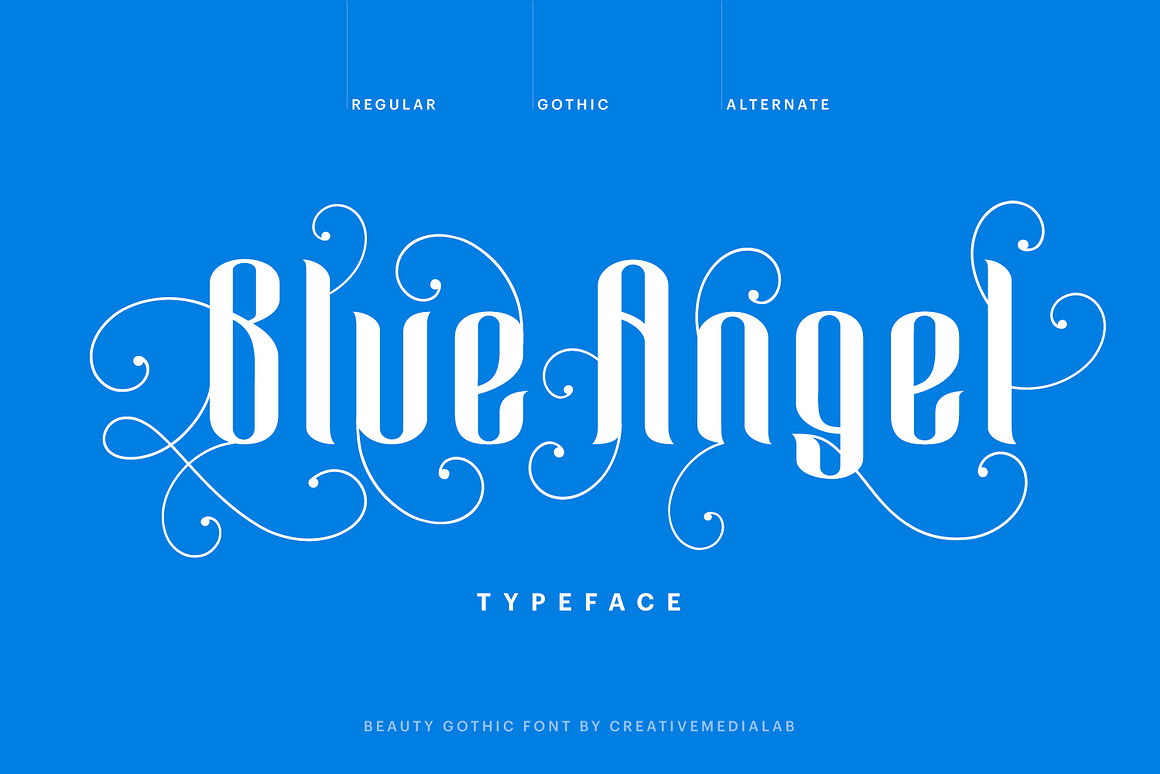
Blue Angel Font
Blue Angel Font is perfect for aviation museum branding, aerospace company logos, military tribute materials, air show promotional graphics, flight training academy signage, aviation photography studios, pilot certification documents, aircraft manufacturer presentations, aviation heritage foundations, and celestial-themed entertainment venues. This commanding typeface excels in applications where aerial excellence, heavenly inspiration, and soaring aspirations are fundamental brand messaging elements.
What makes Blue Angel Font exciting is its perfect fusion of military precision with angelic grace that captures the extraordinary skill and spiritual dedication of elite aviation performers through letterforms that seem to dance across the sky. The font features streamlined character construction with subtle wing-inspired details and precise proportions that create an immediate sense of aerial mastery and divine inspiration. Its distinguished presence makes it perfect for brands that celebrate the intersection of technical excellence and transcendent achievement, where human skill reaches toward heavenly perfection.
The Blue Angel Font family typically includes Regular and Bold weights, often accompanied by condensed variations that accommodate space-efficient aviation documentation and cockpit display requirements. Many versions include alternate characters with enhanced aerodynamic styling, decorative elements inspired by aircraft insignia and angel wings, and special symbols related to aviation navigation and celestial guidance. Some collections feature outline variations and dynamic effects that amplify the soaring, ethereal quality for display applications and aviation celebrations.